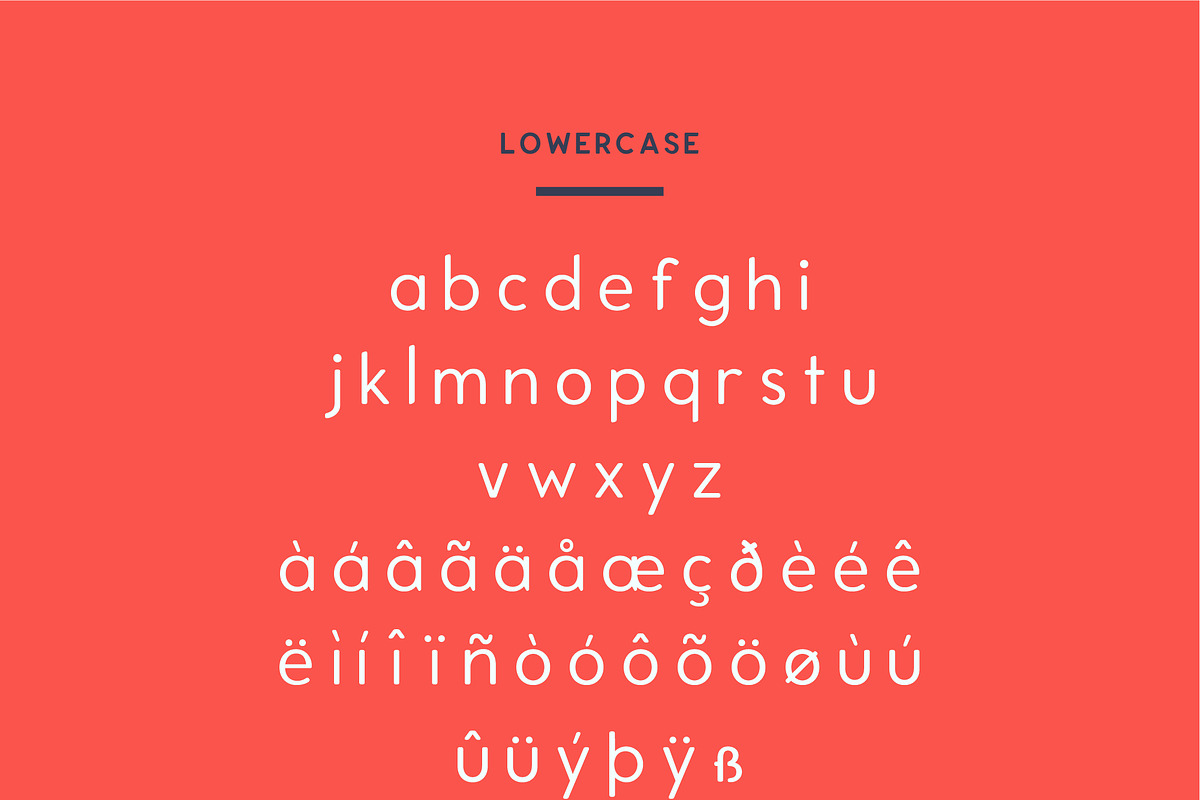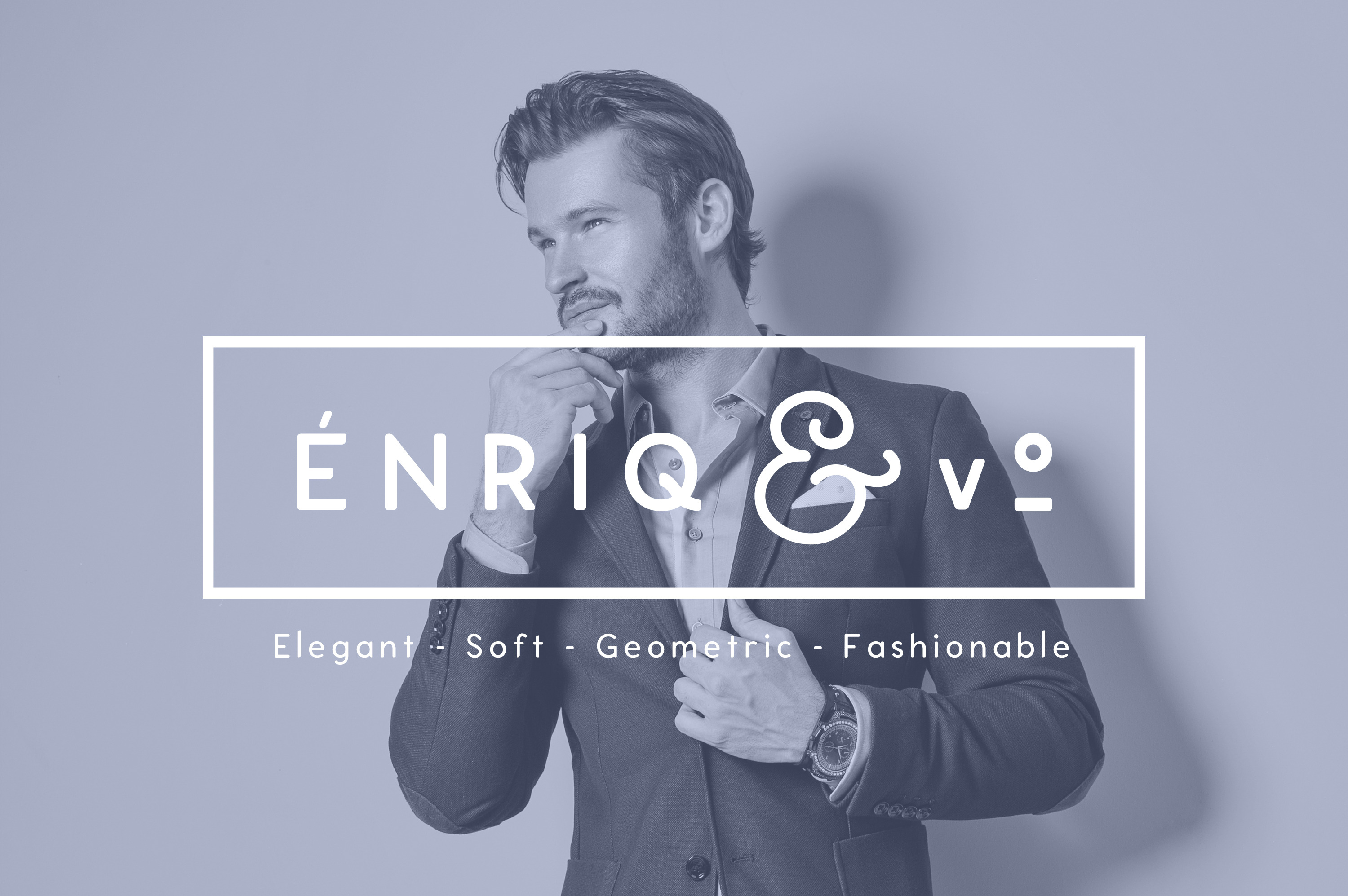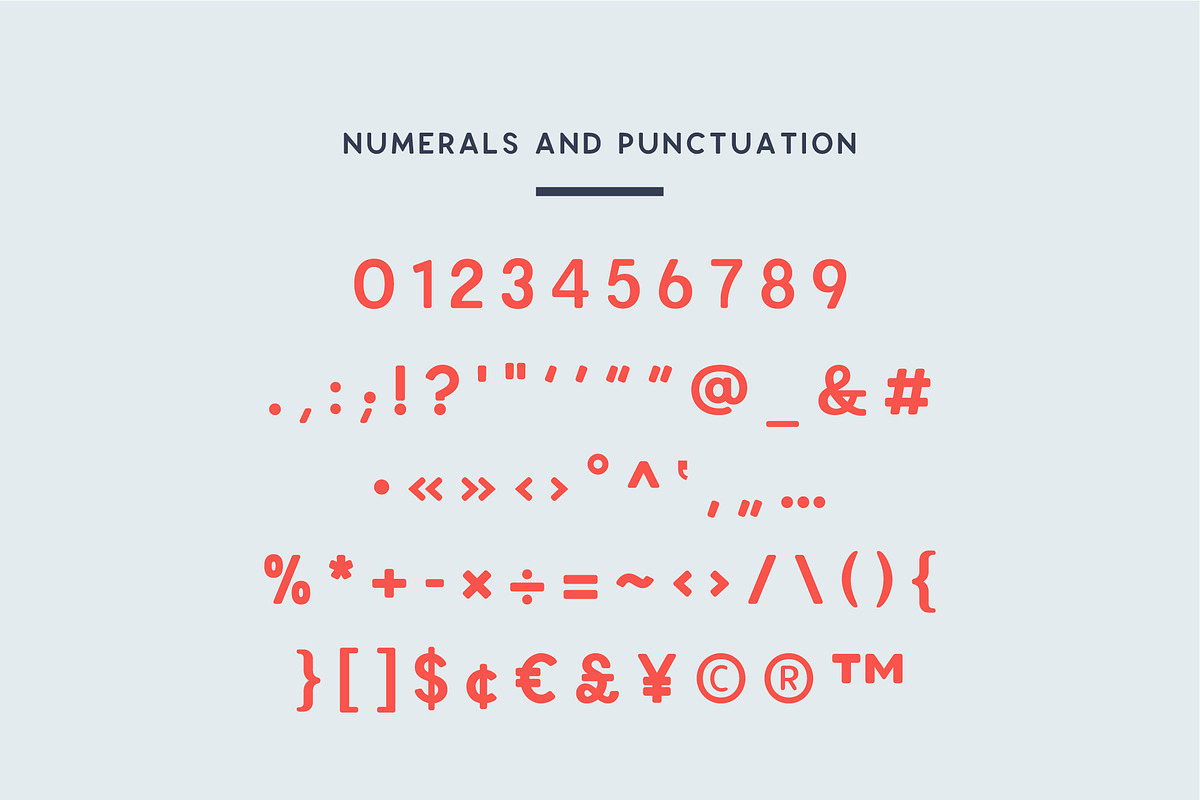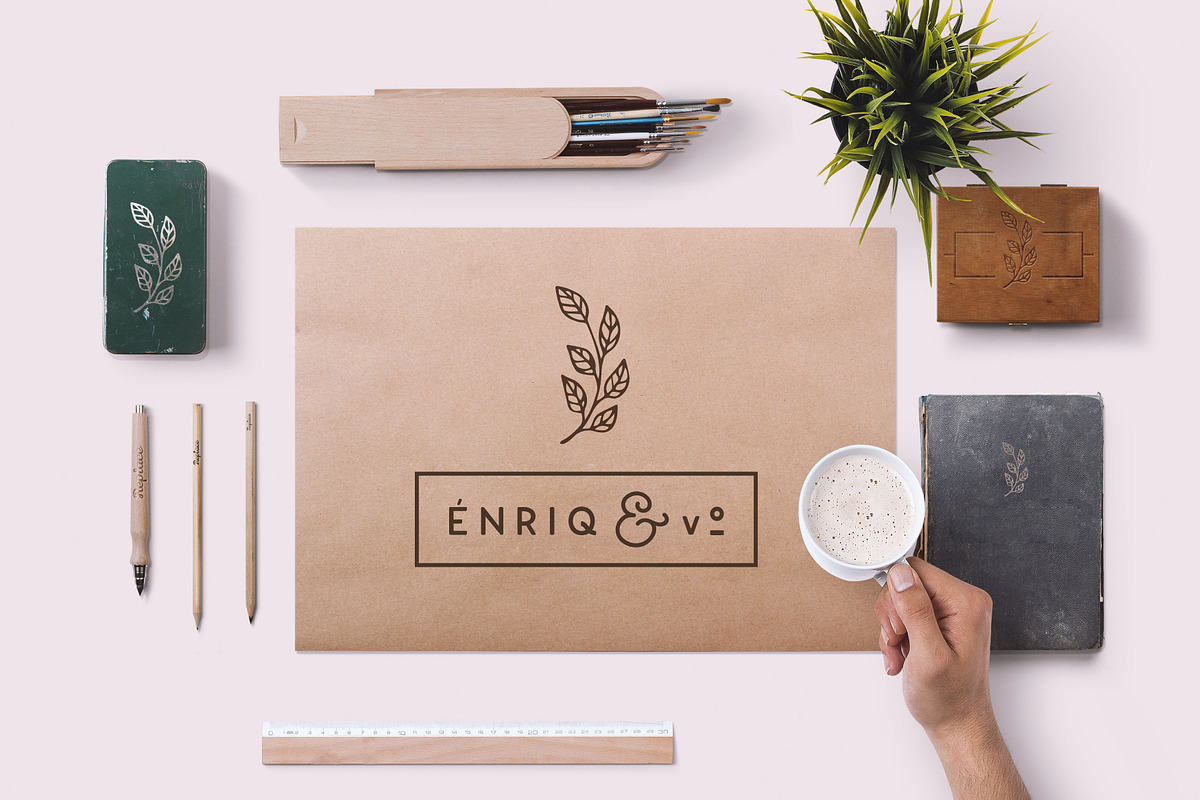
ENRIQ - Elegant Sans Serif Font
Enriq Sans v1.5 is an Elegant Sans serif typeface with smooth rounded edge style, Fashionable, Classy but still Modern. Designed with powerful opentype features in mind, and some nuances aid in legibility and give it a harmonious appearance for both texts and headlines. Perfect for branding, editorial and signage, works great for bigger applications. Each weight includes extended language support, ligatures and more. Perfectly suited for graphic design and any display use. It could easily work for web, signage, Software Interfaces, corporate as well as for editorial design.
Features: Six styles available
- Light
- Thin
- Medium
- Bold
- Black